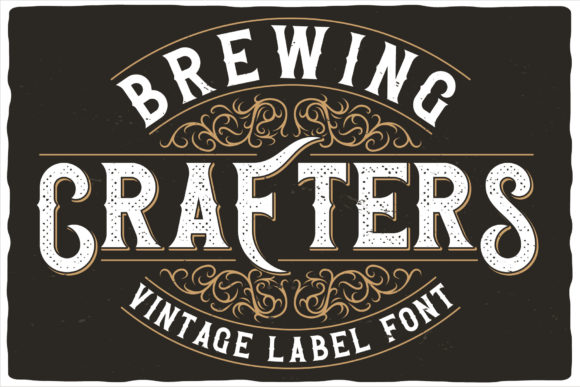
Brewing Crafters Font: A Bold and Vintage Display Font for Your Designs
Are you looking for a font that can add a touch of nostalgia and personality to your designs? Look no further than the Brewing Crafters font. This bold, assertive, and vintage-style display font is perfect for designers who want to create strong, confident, and dynamic designs that stand out from the crowd.
What is Brewing Crafters Font?
Brewing Crafters is a bold, assertive, vintage-style display font that reads as strong, confident, and dynamic. This font is designed to add tons of nostalgic character to your designs, making it perfect for projects that require a unique and eye-catching look. Whether you’re working on a logo, poster, or packaging design, Brewing Crafters is sure to make a statement.
Key Features of Brewing Crafters Font
So, what makes Brewing Crafters font so special? Here are some of its key features:
- Bold and Assertive: Brewing Crafters is a bold font that demands attention. Its assertive style makes it perfect for headlines, titles, and other design elements that need to stand out.
- Vintage Style: This font has a distinctly vintage feel that adds a touch of nostalgia to your designs. Its classic style makes it perfect for projects that require a retro or distressed look.
- Dynamic: Brewing Crafters is a dynamic font that can add energy and movement to your designs. Its bold lines and confident style make it perfect for projects that require a sense of excitement or adventure.
Uses of Brewing Crafters Font
Brewing Crafters font is versatile and can be used in a variety of design projects, including:
- Logos: This font is perfect for creating bold and eye-catching logos that make a statement.
- Posters: Brewing Crafters is great for creating posters that require a bold and attention-grabbing headline.
- Packaging Design: This font can add a touch of personality and nostalgia to your packaging design, making it perfect for food, beverage, or craft projects.
- Advertising: Brewing Crafters is perfect for creating bold and attention-grabbing ads that require a strong and confident font.
Benefits of Using Brewing Crafters Font
So, why should you use Brewing Crafters font in your designs? Here are some of its benefits:
- Unique and Eye-Catching: This font is unique and eye-catching, making it perfect for designers who want to create designs that stand out from the crowd.
- Nostalgic Character: Brewing Crafters adds a touch of nostalgia to your designs, making it perfect for projects that require a retro or vintage look.
- Versatile: This font is versatile and can be used in a variety of design projects, from logos to posters to packaging design.
- Easy to Read: Despite its bold style, Brewing Crafters is easy to read, making it perfect for designs that require a clear and confident message.
How to Use Brewing Crafters Font
Using Brewing Crafters font is easy. Here are some tips to get you started:
- Choose the Right Size: Brewing Crafters is a bold font, so it’s best to use it in larger sizes to make a statement.
- Pair it with Other Fonts: This font pairs well with other fonts, so feel free to experiment with different combinations to find the perfect look for your design.
- Use it for Headlines: Brewing Crafters is perfect for headlines and titles, so use it to grab attention and draw the reader in.
- Experiment with Colors: This font looks great in a variety of colors, so don’t be afraid to experiment and find the perfect color scheme for your design.
Brewing Crafters font is a bold, assertive, and vintage-style display font that’s perfect for designers who want to add a touch of nostalgia and personality to their designs. With its unique and eye-catching style, this font is sure to make a statement in any design project. Whether you’re working on a logo, poster, or packaging design, Brewing Crafters is a great choice for designers who want to create strong, confident, and dynamic designs.
- What is Brewing Crafters font? Brewing Crafters is a bold, assertive, vintage-style display font that’s perfect for designers who want to add a touch of nostalgia and personality to their designs.
- What are the key features of Brewing Crafters font? The key features of Brewing Crafters font include its bold and assertive style, vintage feel, and dynamic energy.
- What are some uses of Brewing Crafters font? Brewing Crafters font can be used in a variety of design projects, including logos, posters, packaging design, and advertising.
- What are the benefits of using Brewing Crafters font? The benefits of using Brewing Crafters font include its unique and eye-catching style, nostalgic character, versatility, and ease of reading.